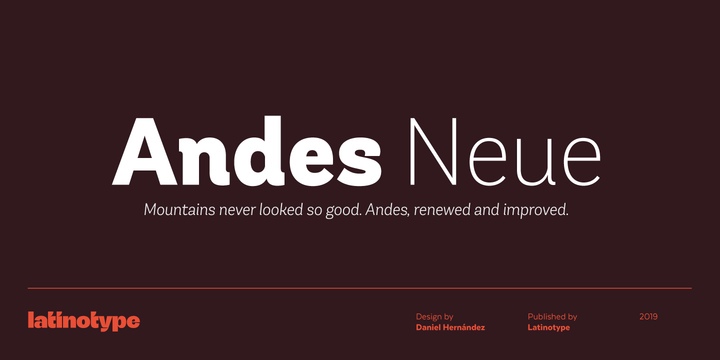
Andes Neue Font
Andes Neue Font is perfect for various design applications including mountain adventure branding, alpine tourism promotions, outdoor gear packaging, high-altitude expedition logos, mountaineering equipment labels, ski resort signage, climbing gym materials, peak performance athletic brands, rugged outdoor lifestyle communications, and elevated adventure travel campaigns. This majestic typeface excels in projects requiring mountain heritage and alpine sophistication that captures the grandeur of high peaks and the determined spirit of mountain exploration.
What makes Andes Neue Font so exciting is its powerful embodiment of mountain majesty and alpine determination through letterforms that suggest towering peaks, crisp mountain air, and the unwavering strength required for high-altitude adventures. The font features strong geometric construction that mirrors mountain architecture, refined proportions that communicate both ruggedness and sophistication, and distinctive character details that reflect the precision and reliability essential for mountain survival. Its distinctive alpine character and elevated appeal make it perfect for outdoor brands seeking to communicate peak performance, mountain authenticity, and the transformative power of high-altitude adventure.
Andes Neue Font family includes multiple elevation-inspired weights from light to black, along with complementary styles that enhance its versatility for different mountain applications. Each style maintains the font's signature alpine character while providing clear hierarchy options for outdoor communications. The family also features mountain-themed decorative elements, peak symbols, and alpine ornaments that can be combined with the letterforms to create cohesive high-altitude design systems.
Whether you're developing mountain brands, alpine tourism services, or high-performance outdoor communications, Andes Neue Font Free Download provides majestic typography that transports audiences to breathtaking mountain heights and celebrates the courage required for alpine adventures. This typeface transforms ordinary communications into inspiring summit calls that promise authentic mountain experiences and peak performance. The font's elevated appeal makes it particularly effective for mountaineering companies, alpine resorts, and outdoor gear brands targeting adventurers who seek the ultimate challenge of conquering mountain peaks.
Andes Neue Font stands out by delivering authentic mountain authenticity that feels connected to real alpine experiences rather than artificial mountain theming. Its carefully engineered mountain proportions and alpine details ensure that designs feel genuinely connected to high-altitude traditions and mountaineering heritage. From alpine expedition branding to mountain resort communications, this font provides designers with tools to create communications that celebrate mountain majesty and inspire appreciation for alpine adventure through strong, peak-inspired typography that reaches new heights of outdoor excellence.